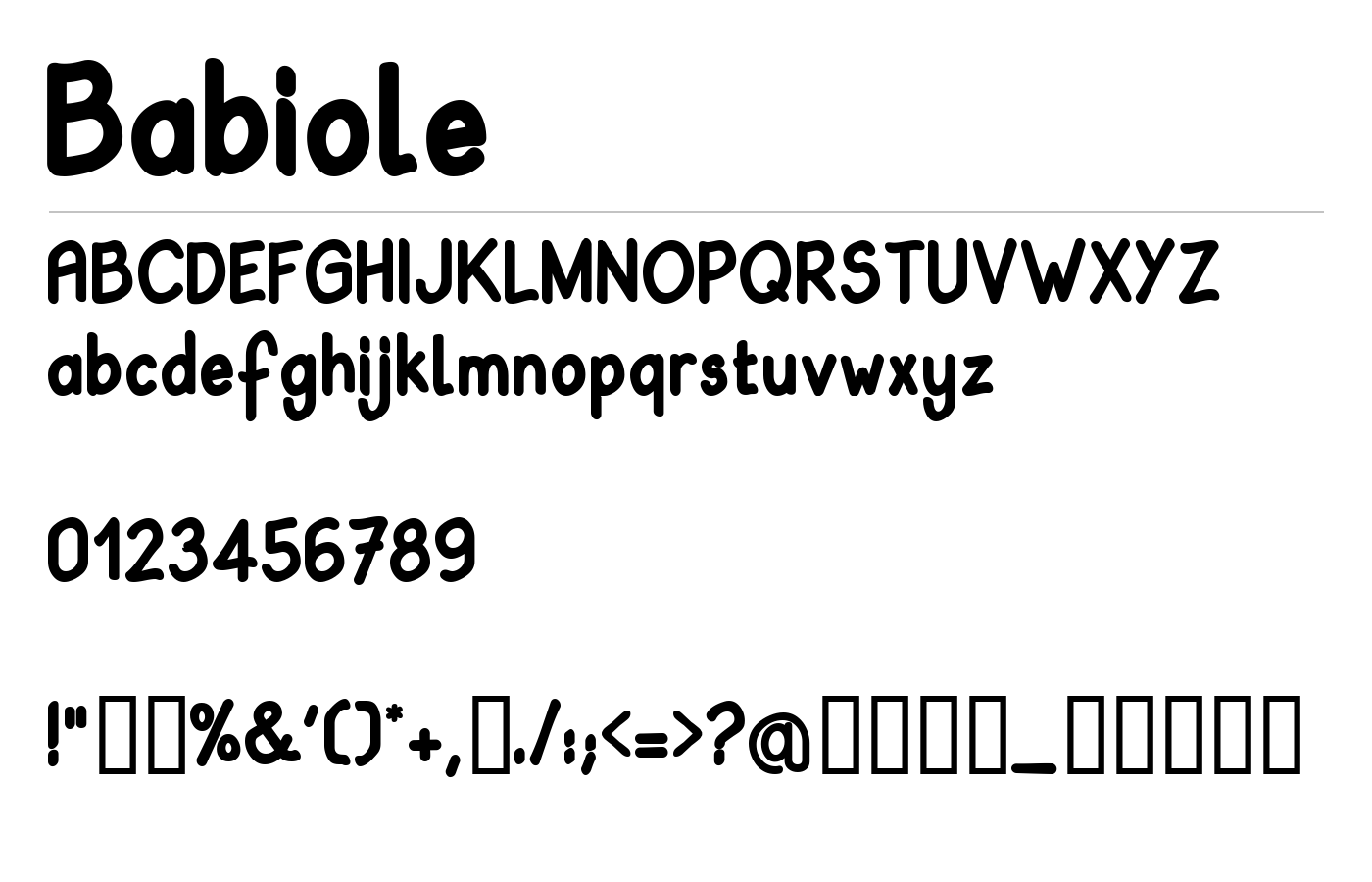
Babiole is a playful, rounded sans serif font with a friendly, casual vibe. Its slightly irregular, soft shapes and medium weight make it approachable and easy to read, perfect for projects needing a warm, informal feel. This font works well for children’s books, logos, packaging, and any design seeking a fun and lively personality.
Babiole Font